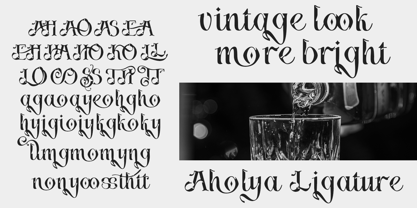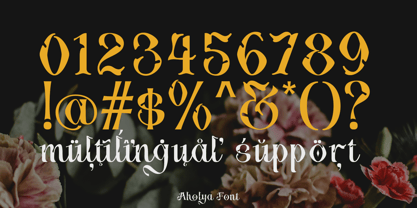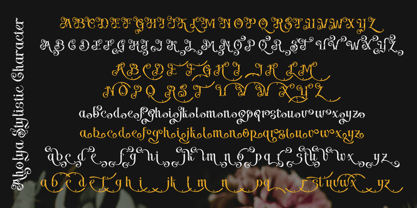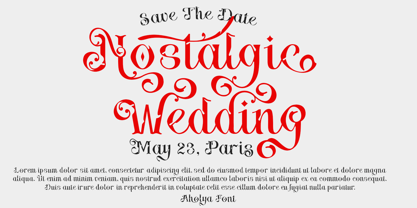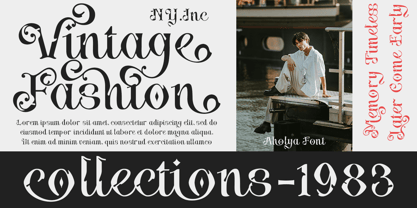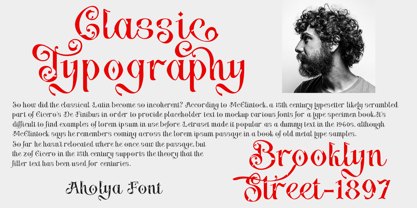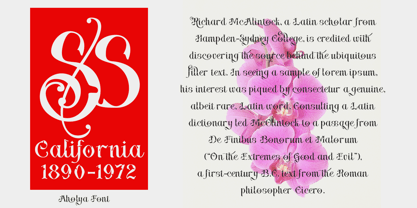
Aholya
by TypeClassHeroes
The Aholya Font Family was designed by Suandana ipandemade and published by TypeClassHeroes. Aholya contains 2 styles and family package options. More about this family
Aholya is a bold classic will create a design that is gorgeous and still looks modern and elegant with a romantic touch. Classy and readable, carefully creating every glyph, designing beautiful simple words with this font. Ideal for vintage logo, packaging, book cover, wedding invitation, brand identity, or anything old elegance touch.